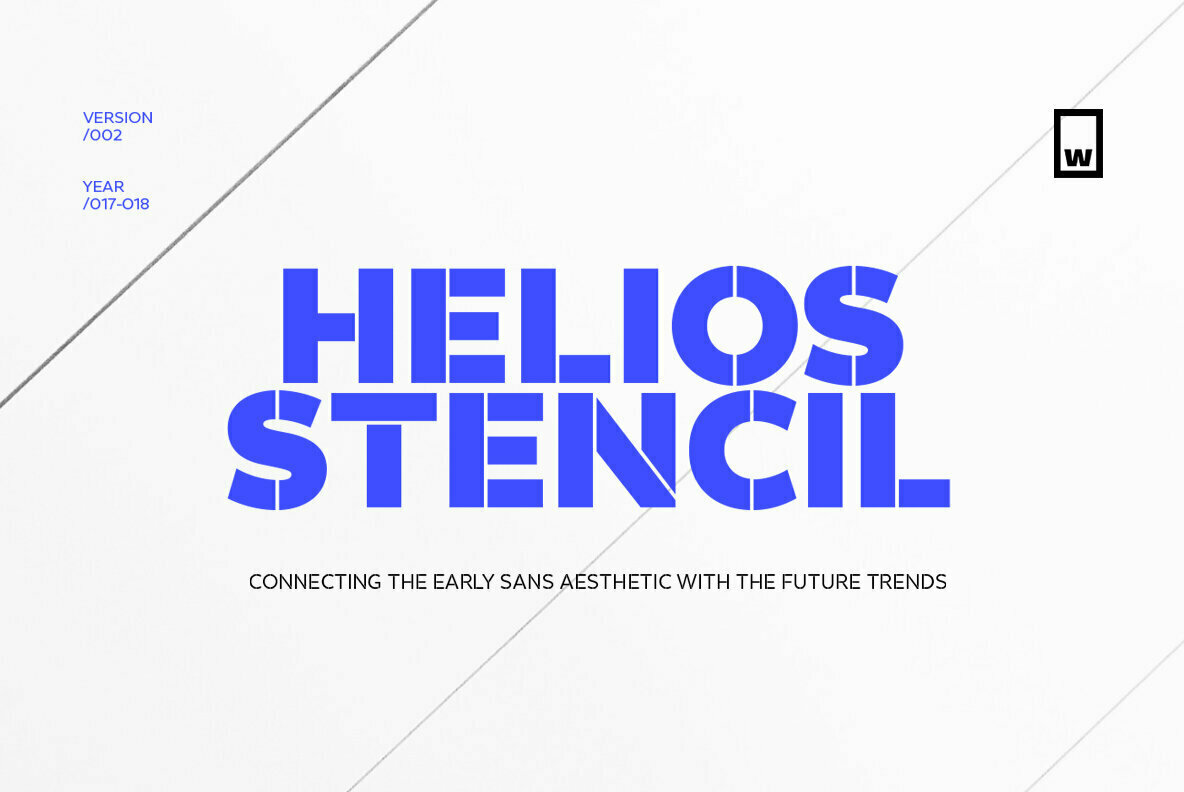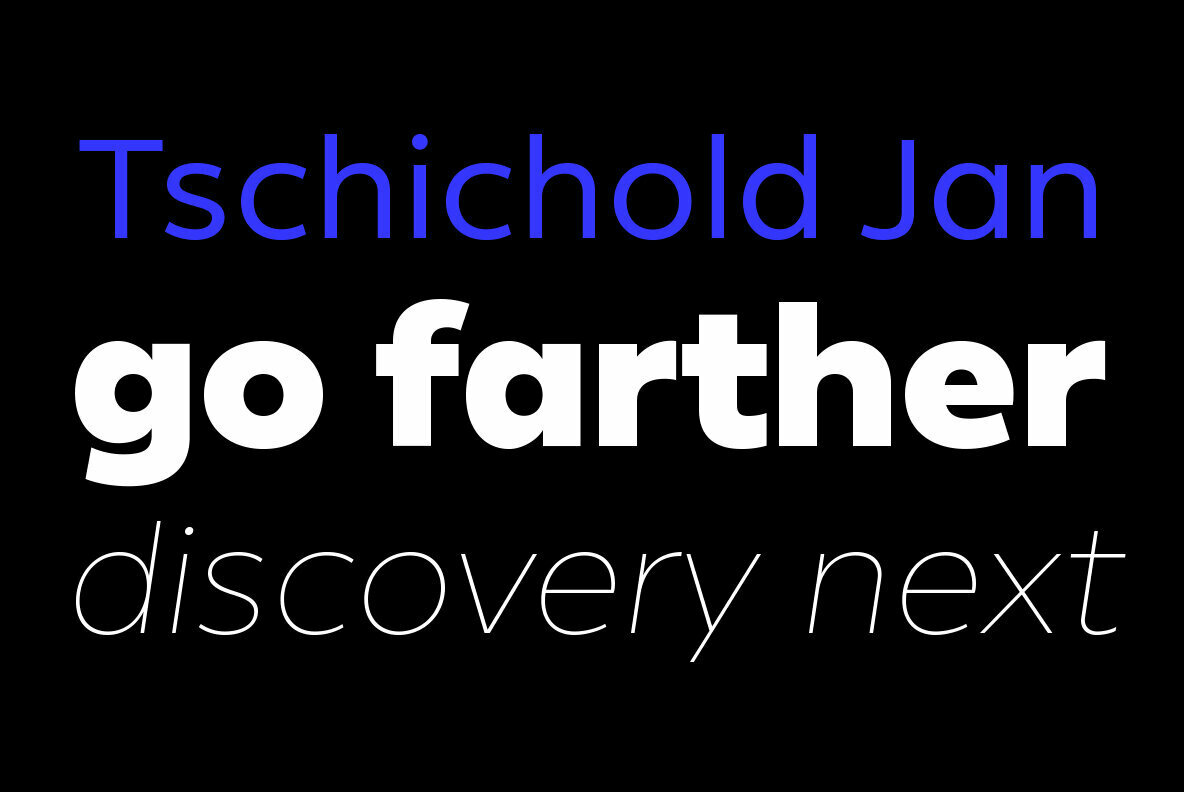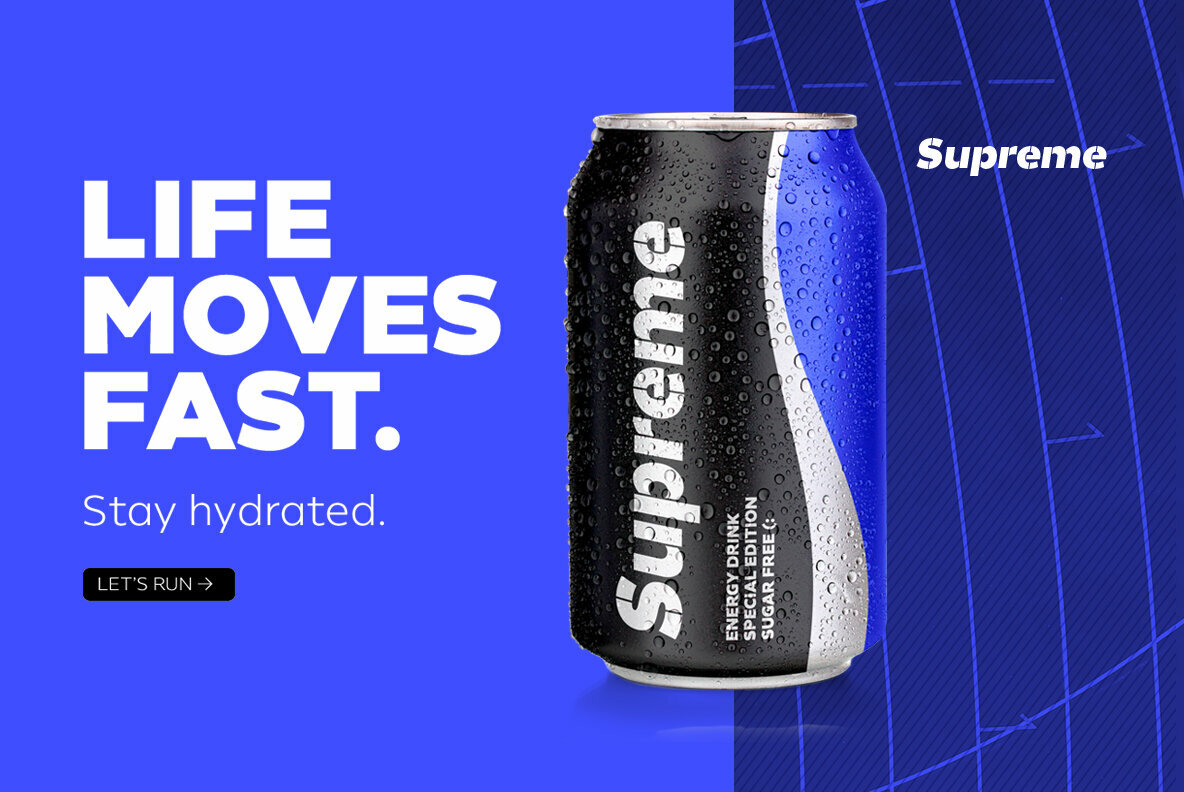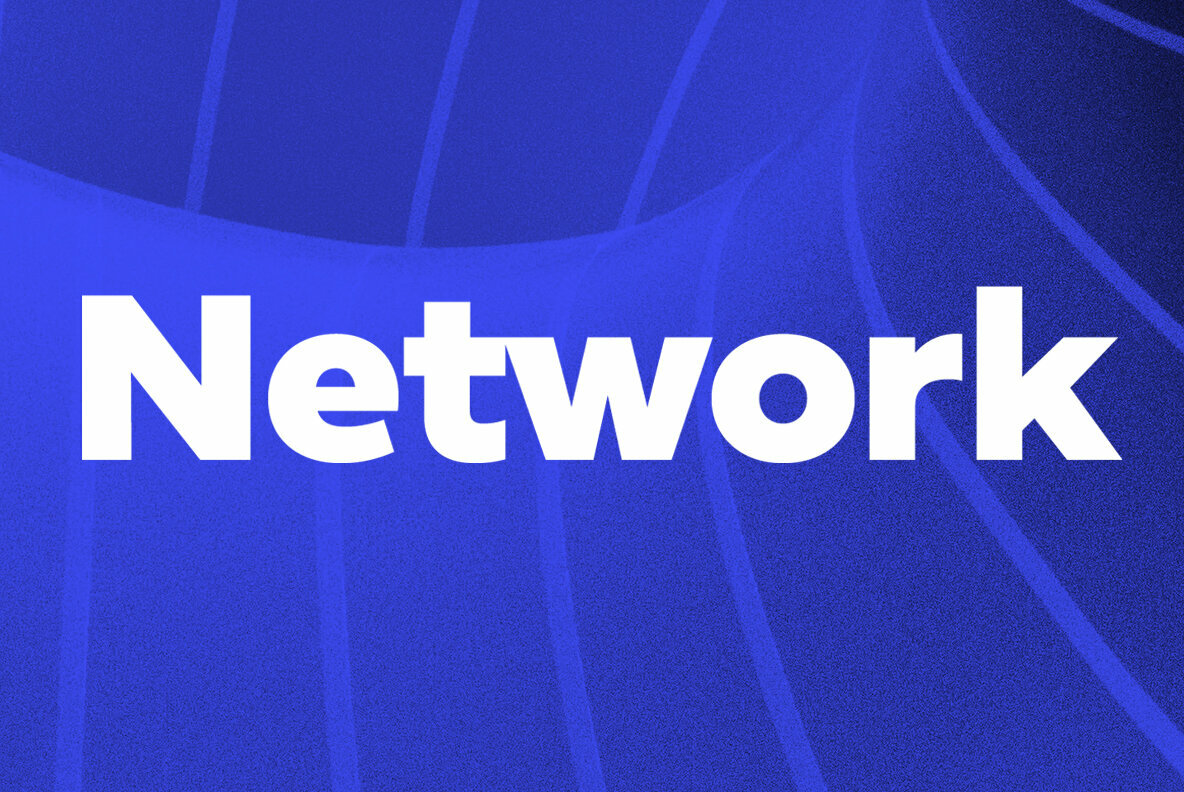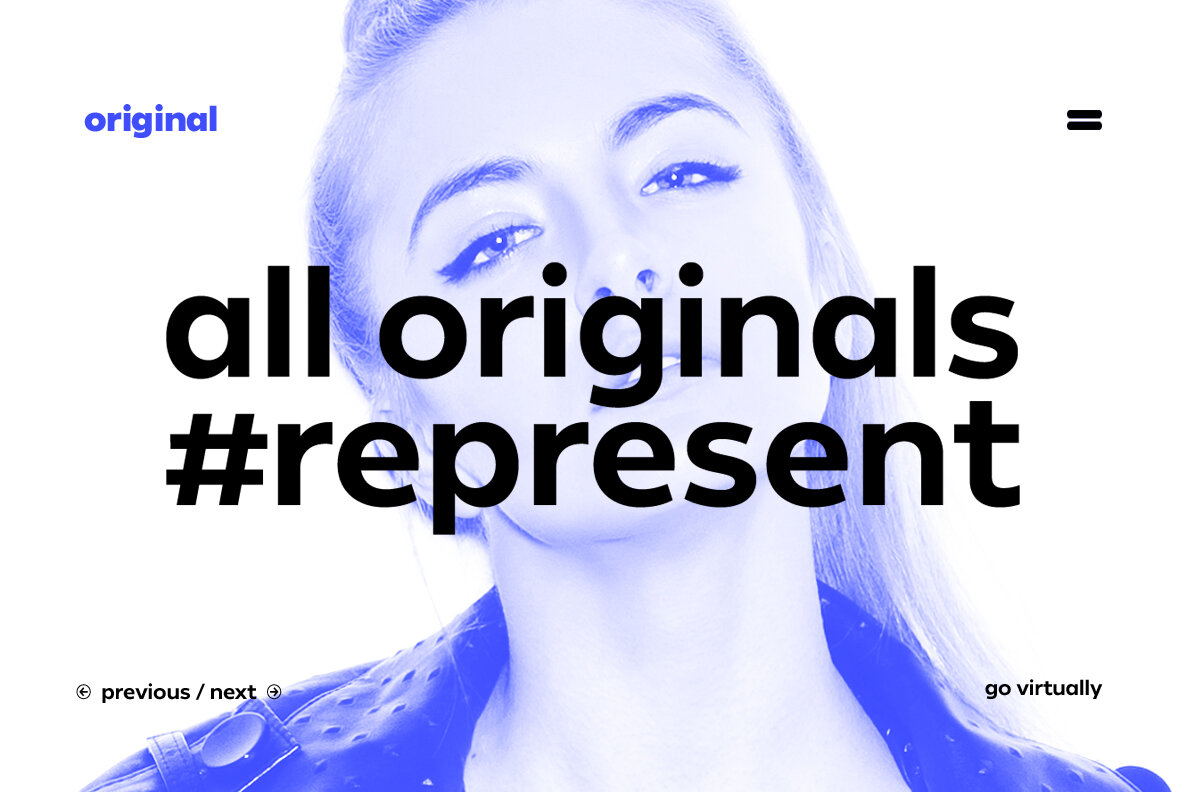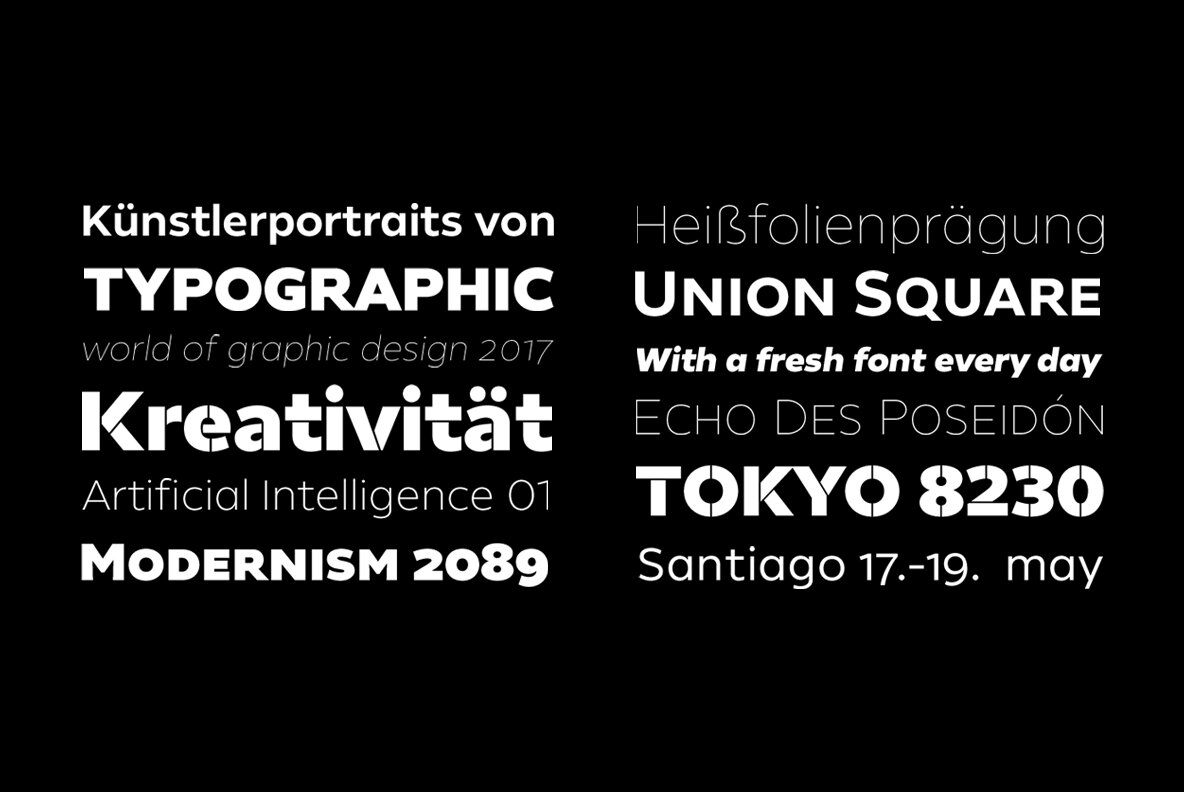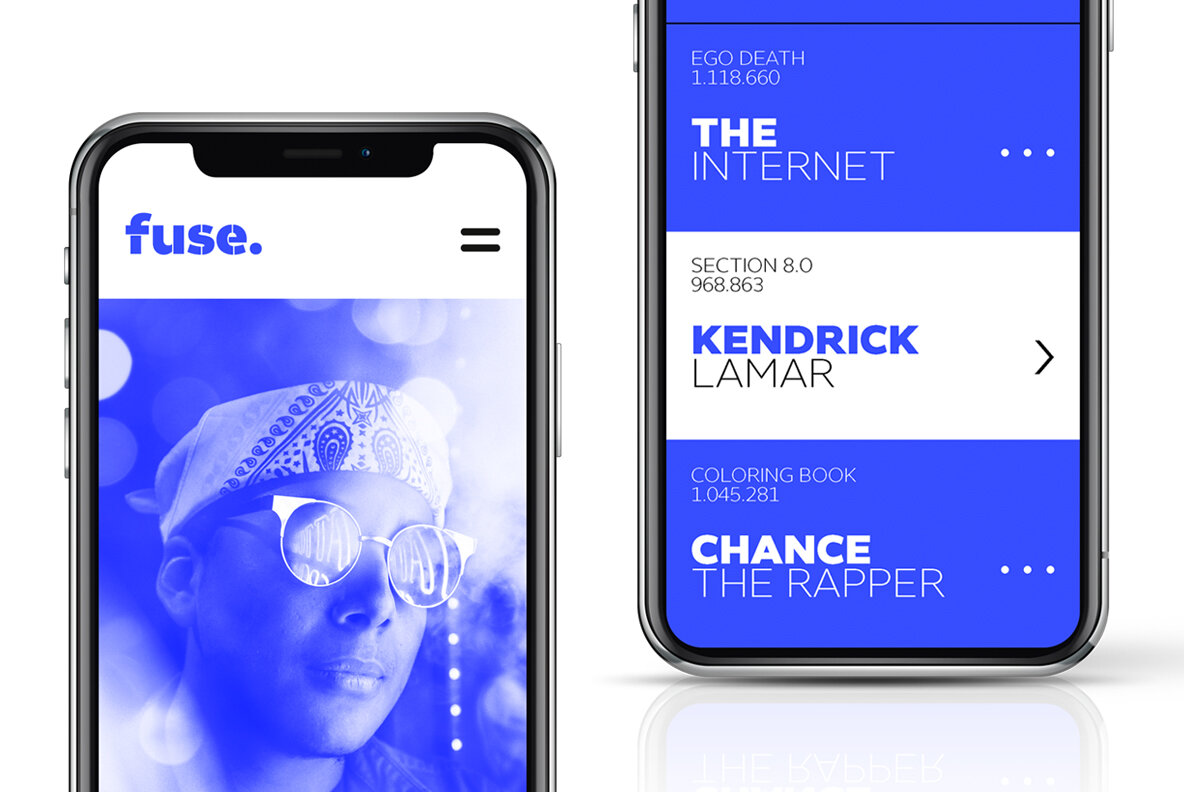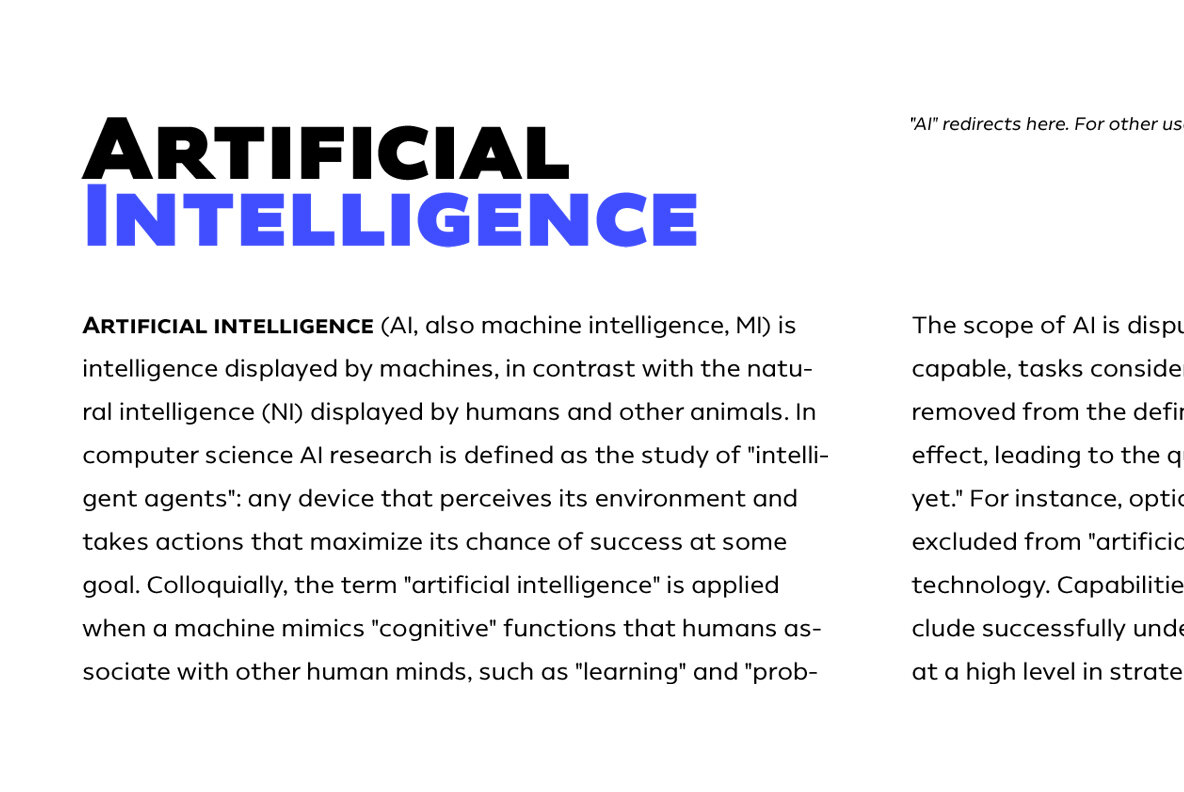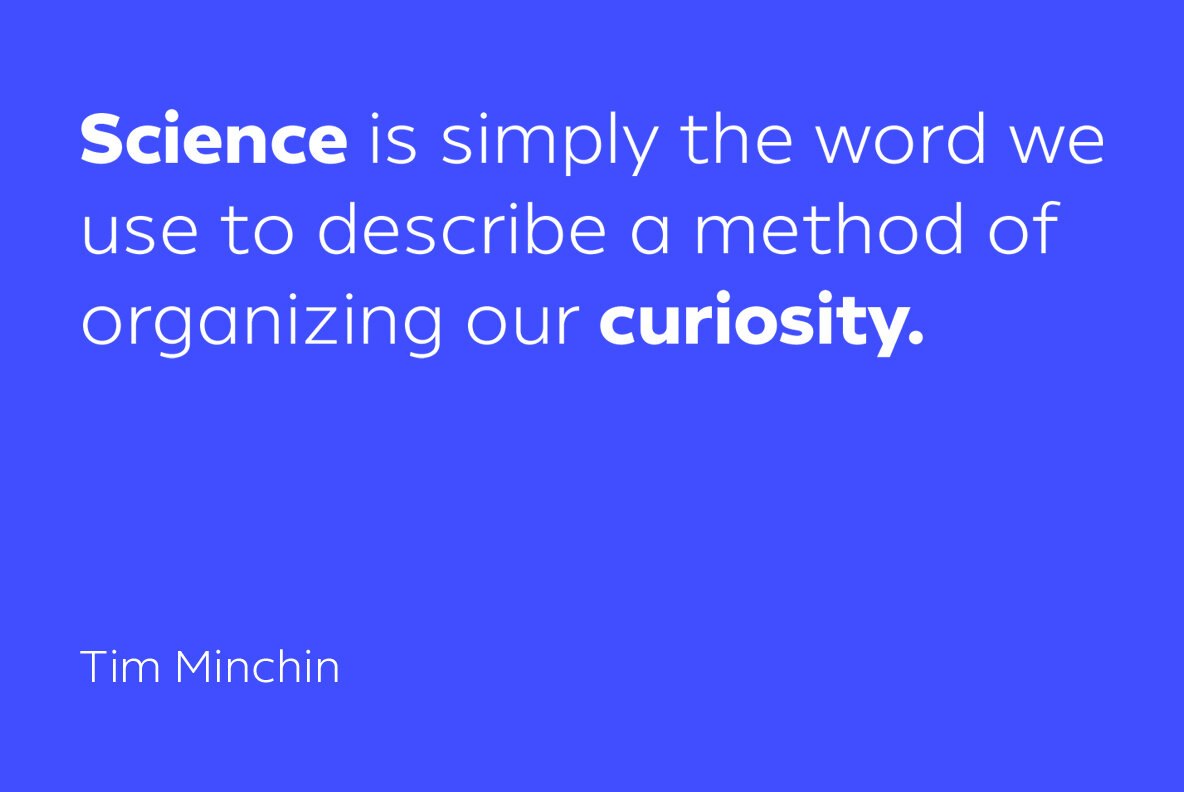
Helios Antique and Stencil Font
Helios Antique & Helios Stencil
Helios type family is the result of a mixture between the early sans serif and the modern trends of our era. Its rational structure is subtly wider than the majority of the first sans, generating a higher impact in its uses. All the typeface terminals are more open in order to balance better the whites and blacks of Helios, and where the strokes meet it has a deeper contrast giving more legibility to the reader. Furthermore, in some letters it is possible to see some prominent features such as the leg of the "R" and the tail of the "Q", which are particular gestures that identify this type family.
Helios Stencil is the tough version of this type family. All the stencil gaps were measured rigorously, thus in small sizes it conveys a neutral aesthetic whereas in big sizes a display logic appears.
Helios Antique is composed by 36 styles, 782 glyphs and small caps. Besides, it has powerful OpenType features for each style, including alternates characters, ligatures, fractions, special numbers, arrows, extended language support and many more.
Designers: Felipe Sanzana, Salvador Rodríguez